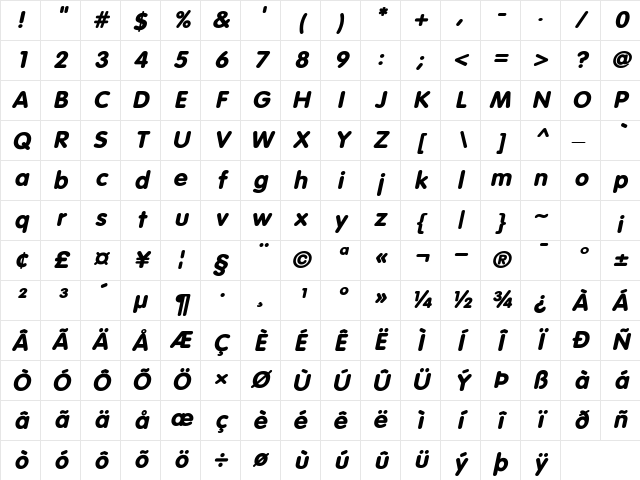
Complete CorporateRoundedExtraBold Oblique glyph index. Displaying only characters natively supported by CorporateRoundedExtraBold Oblique font.
CorporateRoundedExtraBold softens its letterforms with rounded terminals, giving it an approachable, friendly quality that works well in consumer-facing and digital contexts. The slanted form adds forward momentum and visual energy. Its bold stroke weight gives it real presence on the page.
Font Pairing: Pairs well with a rounded or humanist sans for body copy, maintaining the friendly tone without relying on CorporateRoundedExtraBold to carry extended reading.
Pro Tip: Use CorporateRoundedExtraBold for UI elements, app interfaces, and anywhere a friendly, approachable tone needs to be maintained without sacrificing clarity.